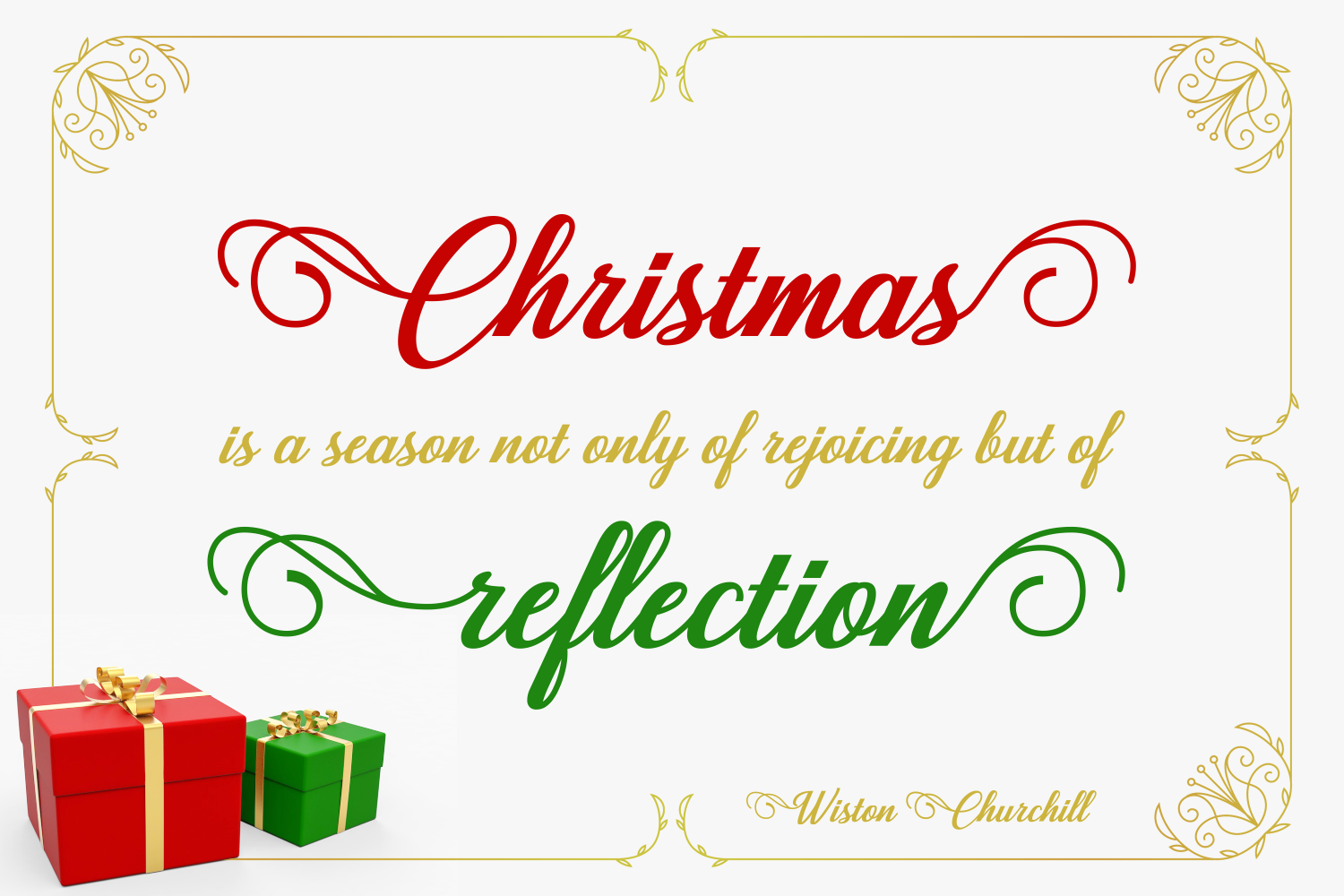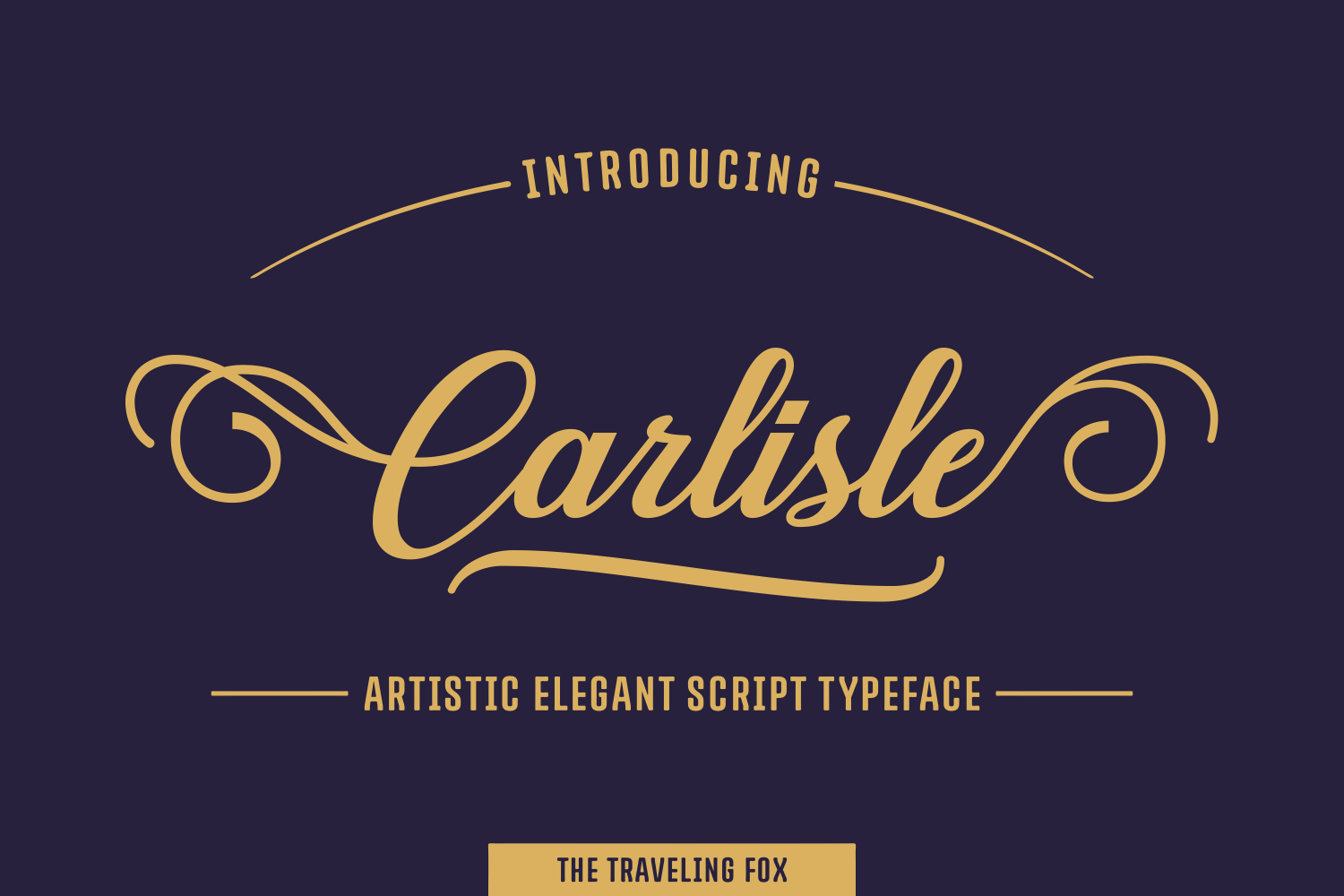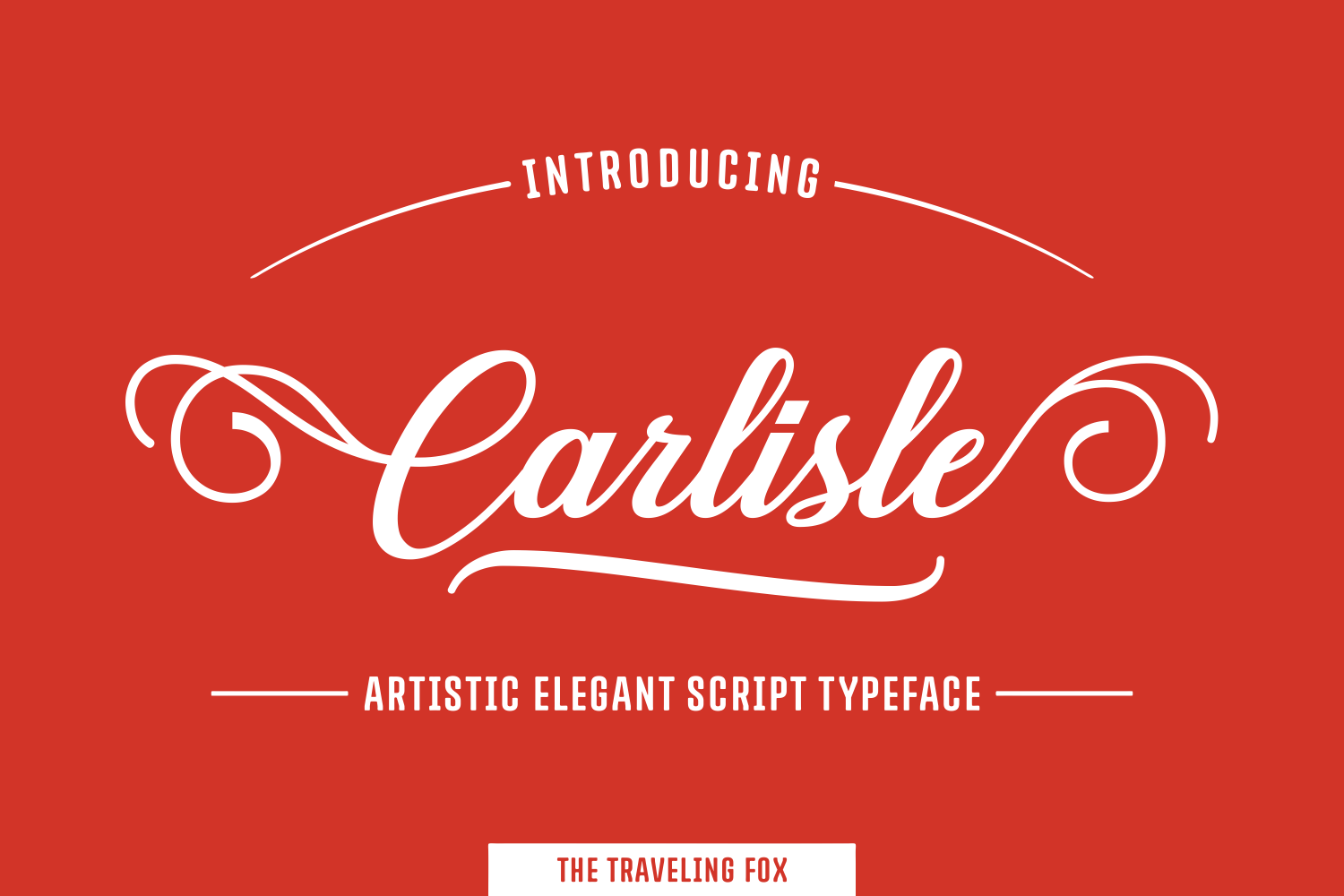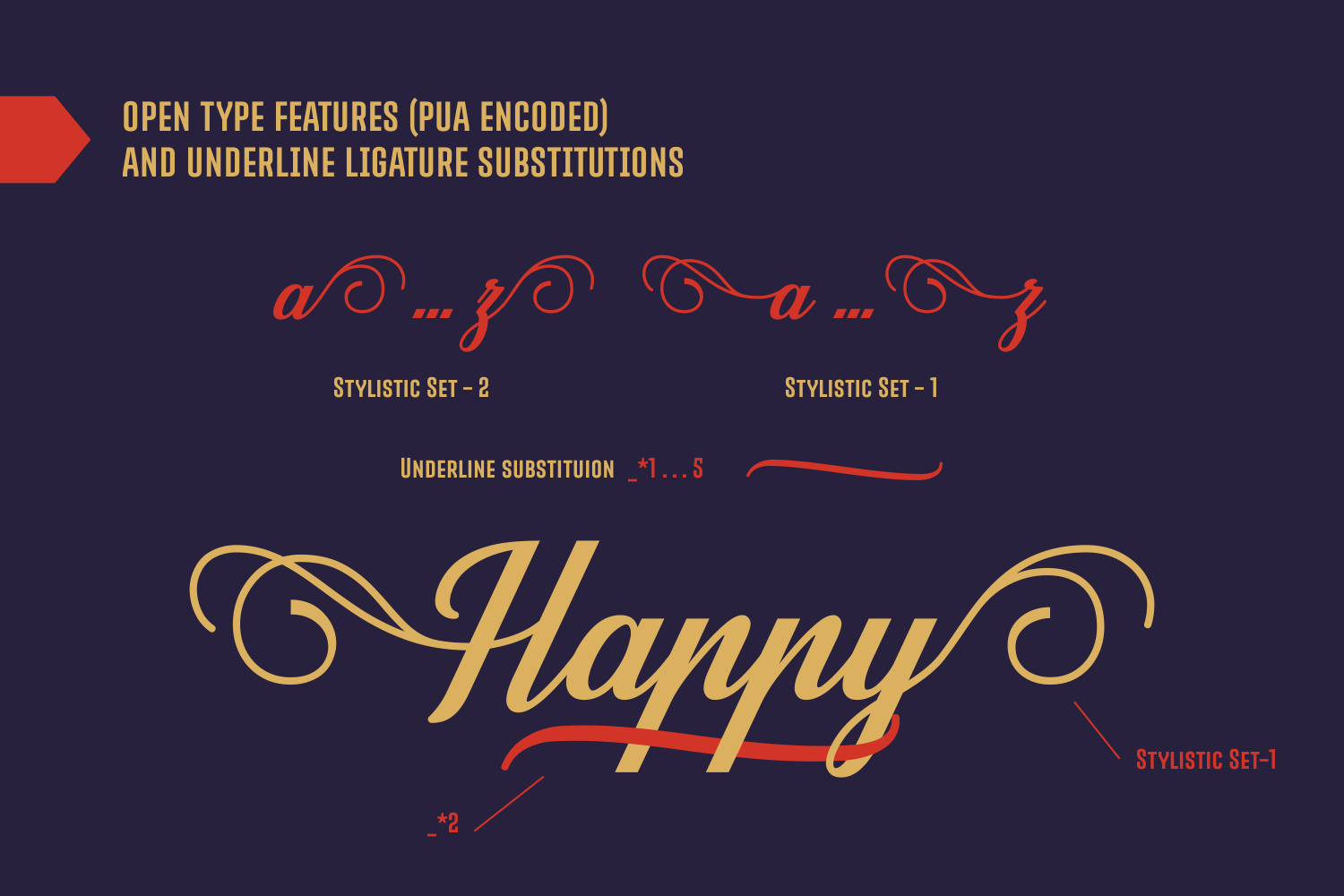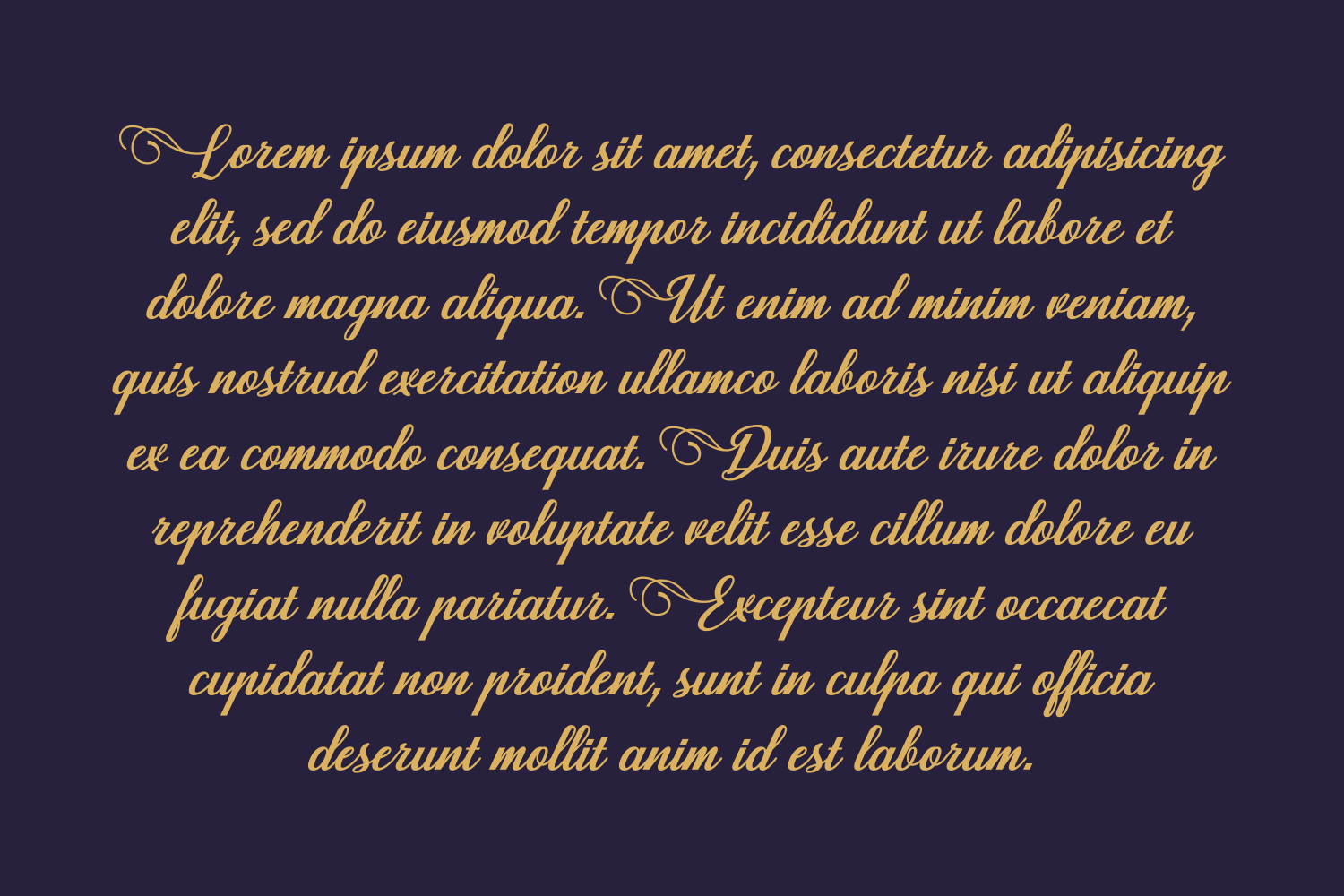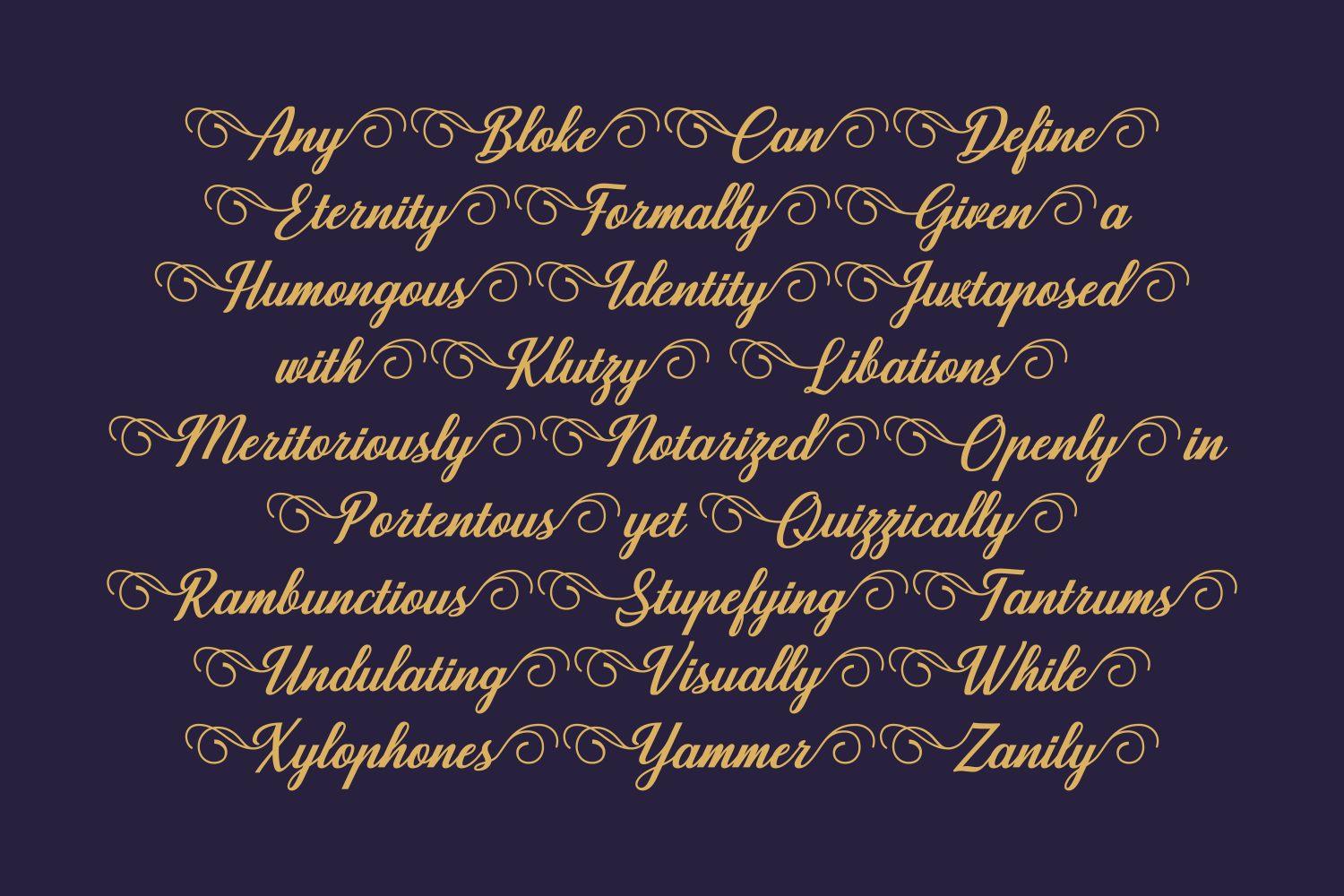
Introducing Carlisle Font: Elevate Your Designs with Elegance and Flair
Are you on the hunt for a font that exudes sophistication, elegance, and a touch of whimsy? Look no further than the Carlisle Font, a stunning script font that is sure to take your designs to the next level. With its beautiful flourishes and alternate characters, Carlisle is the perfect choice for designers and crafters looking to add a touch of luxury to their work.
The Characteristics of Carlisle Font
Carlisle is a beautifully crafted script font that boasts a range of impressive features. Its elegant, cursive strokes are perfect for creating eye-catching display designs, while its range of alternate characters allows for truly unique typography. Whether you’re looking to create a stunning logo, a beautiful wedding invitation, or a stylish packaging design, Carlisle has everything you need to make your project shine.
What Makes Carlisle Font So Special?
So, what sets Carlisle apart from other script fonts on the market? Here are just a few reasons why Carlisle is a cut above the rest:
- Unique Alternates: Carlisle features a range of alternate characters, allowing you to create truly unique and personalized designs. From subtle variations in letterforms to more dramatic flourishes, Carlisle’s alternates give you the flexibility to experiment and find the perfect look for your project.
- Elegant Flourishes: Carlisle’s elegant flourishes add a touch of sophistication and whimsy to any design. Whether you’re looking to create a bold statement or a more understated look, Carlisle’s flourishes are sure to impress.
- Craftsmanship: Carlisle is a beautifully crafted font, with attention to detail and a focus on quality. Its smooth, flowing strokes and precise letterforms make it a joy to work with, and ensure that your designs look professional and polished.
Carlisle Font is the perfect choice for designers and crafters looking to elevate their work. Whether you’re a seasoned professional or just starting out, Carlisle’s ease of use and flexibility make it an excellent addition to your font library.
From graphic designers and branding experts to crafters and DIY enthusiasts, Carlisle is sure to inspire and delight. Its versatility and range make it suitable for a wide range of projects, including:
- Logos and Branding: Create a stunning logo or brand identity with Carlisle’s elegant script font.
- Wedding Invitations: Make your wedding invitations truly special with Carlisle’s beautiful flourishes and alternate characters.
- Packaging Design: Add a touch of luxury to your packaging designs with Carlisle’s sophisticated script font.
- Stationery: Create beautiful stationery, including letterheads, business cards, and more, with Carlisle’s elegant font.
In conclusion, Carlisle Font is a stunning script font that is sure to elevate your designs and add a touch of elegance and sophistication. With its unique alternates, elegant flourishes, and beautiful craftsmanship, Carlisle is the perfect choice for designers and crafters looking to create stunning display designs. So why wait? Download Carlisle Font today and start creating beautiful designs that showcase your creativity and style.